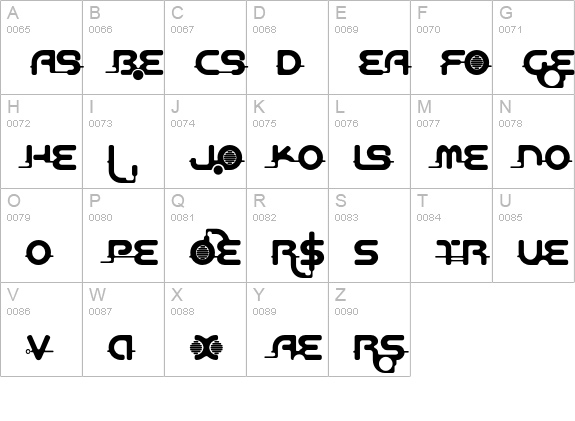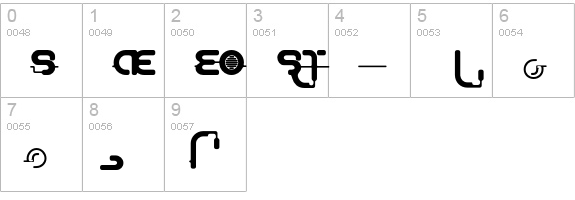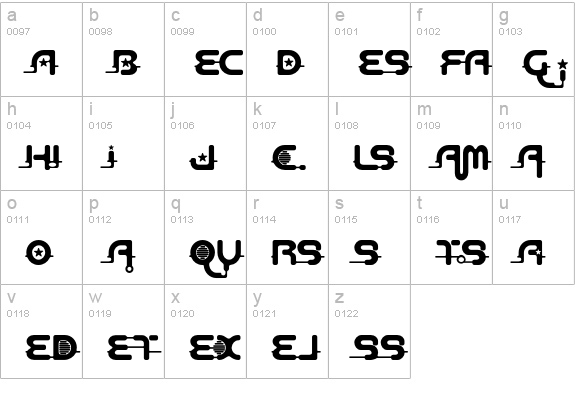
AeosLigature is a sophisticated and elegant font that combines classic charm with modern simplicity. This unique typeface features beautiful ligatures that add a touch of luxury to any design project. Its fluid strokes and graceful curves create a harmonious balance that is both eye-catching and easy to read. AeosLigature is the perfect choice for branding, logos, invitations, and more. Whether you're designing a wedding invitation or a high-end fashion label, this font will elevate your project to the next level. Its versatility allows it to be used in a variety of contexts, from digital media to print publications. What's more, AeosLigature is available for free download at FontsMarket.com. This means you can enjoy the beauty and elegance of this font without spending a dime. Don't miss out on this fantastic opportunity to enhance your designs with AeosLigature - download it today and let your creativity shine!